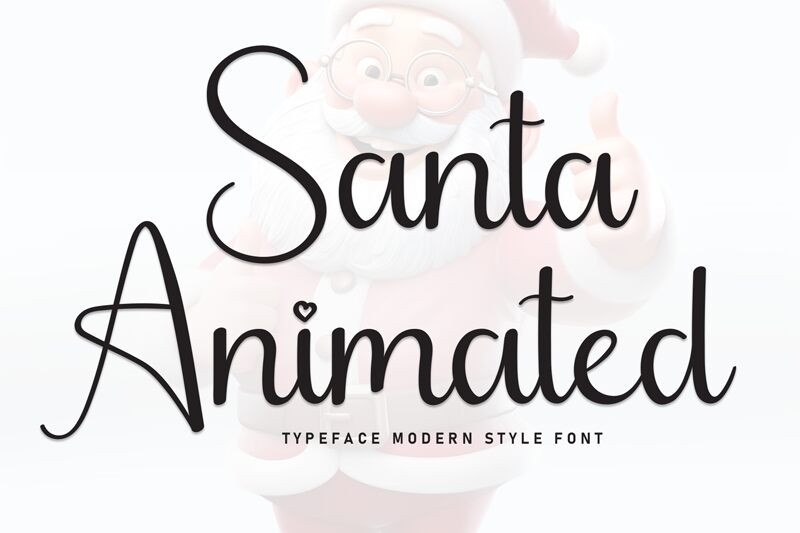
Santa Animate font by Andi Moz is a free personal use script font. It boasts a classic modern design with a sense of luxury and elegance in every character. Its smooth and curving appearance is supported by a transparent look and flowing lines. It has a long modern body with great whimsical shape styles. Both legible and fun, it is highly approachable and will draw users to your project in a heartbeat.
As a transparent and uniform script typeface, Santa Animate has classic yet exceptional all-around ability and will match most contexts. Great fit for headings, titles, short body texts, poster designs, social media posts, branding, and more. It excels more in casual or contemporary projects but goes surprisingly well in more formal situations too.
This is a sweet and friendly handwritten display font. Cute and fun, this font is perfect for writing wedding invitations, cards, or any other design that requires a playful touch.